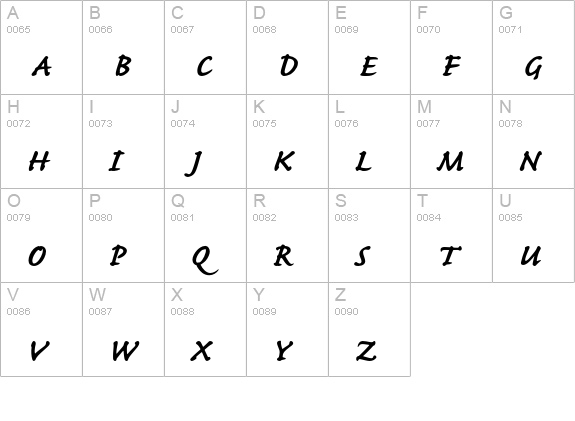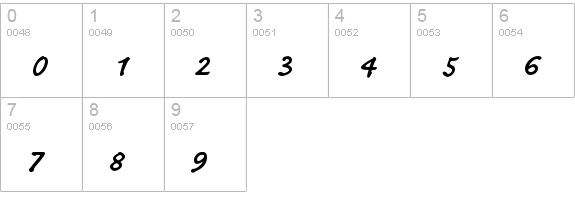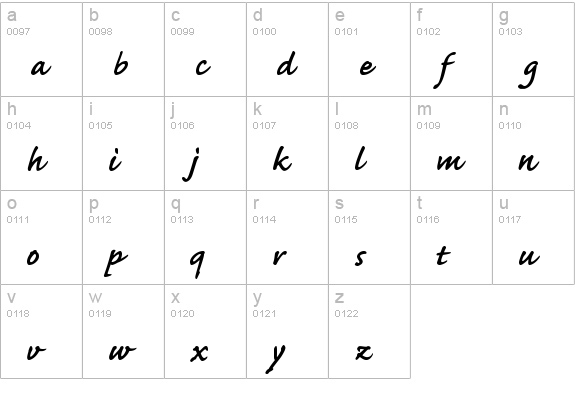
Caflisch Script Pro Bold Font Details
Caflisch Script Pro Bold is a strong, high-contrast variant in the Caflisch typeface family \xE2\x80\x94 well suited to headlines, attention-grabbing titles, and strong calls-to-action.
Caflisch Script Pro Bold font is a stunning and elegant typeface that exudes sophistication and charm. Its bold and expressive strokes capture the essence of hand-drawn calligraphy, making it perfect for adding a touch of elegance to any design project. With its intricate details and graceful curves, Caflisch Script Pro Bold font is sure to captivate and impress. The bold weight adds a sense of strength and presence, making it ideal for headers, titles, and emphasis in both print and digital mediums. What sets Caflisch Script Pro Bold font apart is its versatility. Whether you're designing wedding invitations, branding materials, or editorial layouts, this font will elevate your work to new heights. It effortlessly combines classic style with a contemporary edge, making it suitable for a wide range of design aesthetics. But what's even better is that Caflisch Script Pro Bold font is available for free download at FontsMarket.com. Yes, you read that right - it's free! This means that you can enhance your designs without breaking the bank. So why wait? Head over to FontsMarket.com and get your hands on this exquisite font today. Embrace the timeless elegance of Caflisch Script Pro Bold font and watch as your designs come to life with sophistication and grace. Download it now and let your creativity soar!